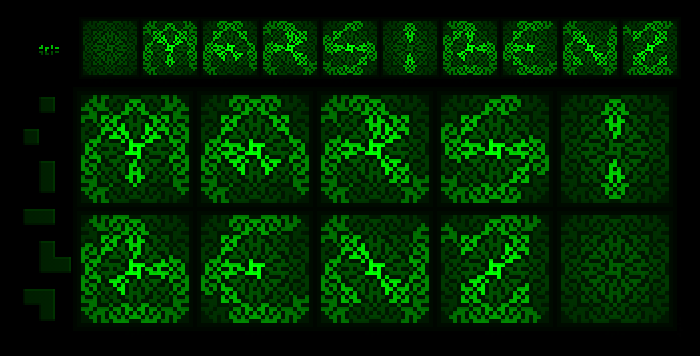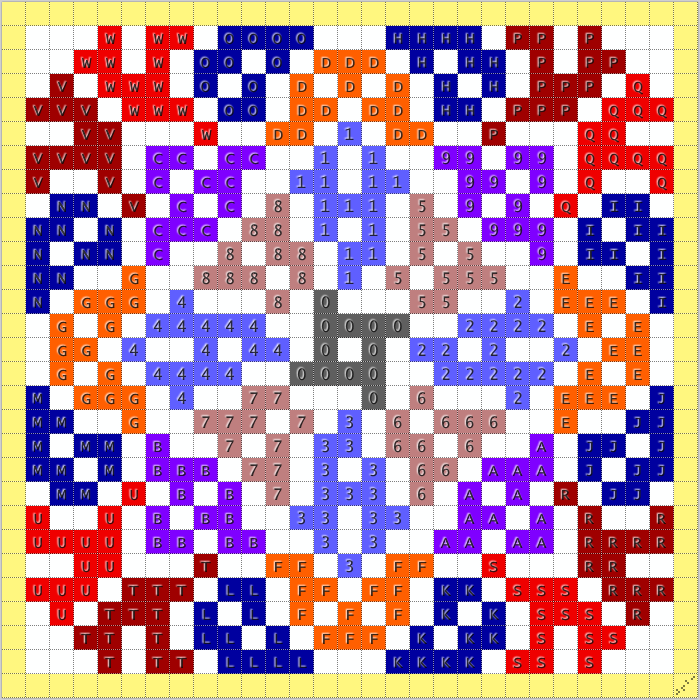
Just WOW  ... what a pixel design! The secret lies in the green ;)
@Aeolien: for your lantern, the green sample was fuelled by J'onn J'onzz… ;-)
{ I'm going to post this sample as plain text + a chart = how-to… ^^ }
Fixed the 5-8 keys + fine tuned the horizontal spacing (3px).
→ Font uploaded. You can paste this:
“mars:benz”_sample_(in_fancy_uppercase)[black_bg][green_fg]:
03859CDEGIJMPQRTUVW 04679CDEGHJMORTU 014569ADGMORSTUVW 024ACDEFGHJKLNTU 13DF 0127CDEFGJKLMNORSTUW 04BCDFGHKLMOPRS 086ABCEGIJMQRSTUVW 0579ABCDFHKLPSTV
{ACDEFGHIJKLMPQT(uc_o) 04569AMNPRSTUV(uc_k)}_optional
TUMGVC806ARJEIQS OD103FLK QPHDCGMUTLFA QPHDCG402MUTLFKS HD10F
@cmunk:{1345678 DEFGHIJKLMNOPQRSTUVW 1249ABC}animated;)
@dpla - Congratulations on the success of this amazing project (D33SPM V25), as well as the original D33SPM !
@Goatmeal & CMunk: thank you, I may fontstruct (clone) a complete set of text characters 'soon' (capitals, digits, punctuations…) after this experiment/tutorial. I still don't know next (Svg hopefully, perhaps more imbricated elements, like 256)…
B.t.w., here is the small sample in image for CMunk (colored and magnified from my plain text above).^^
Normal downsampling…
Testing 1:1 size…
(I'll post many '700px' images soon.)
13DFLMNOTUVW0G VNGMU VWOD104GMUTLF VWOD1043FLTU VNG4013FD OWVNG403FLTU OWVNG403FLTUM VWOD103F OWVNG403FLTUMD1 OWVNG403FLTUD1 VNGMU103FKRSJEIQPHD VNGMU103FD VNGMUDHPQIE203FKSR VNGMUDHPQIE2JRSKF
VNGMU10D2QIEJR VNGMUFKSRJE201DHPQ VNGMUFKSRJE201DHPQ3 VNGMU1DHPQIEJR VNGMUFKSRJE201DHPQ3I VNGMUFKSRJE201DHPQI 023EJRSKFVWOD14GMUT
your “code” = numbers 0 till 19 (+ “2o”), quite smart again!-))
« 1.5 y of FS » so you are a lot more used to this tool than I'd ever be. (I shamefully limit my use to pixel & generator stuff, contrary to the FS masters that can produce beautiful, round & fanciful outlines…) It's a pity too that I can only take into account the micro pixel fonts (which is more or less my hobby since the early 1980s: the very low quality (I mean, usability in US-ASCII at least) made me stop listing the (time-wasting) hundreds of fontstructed trials.
that "2o" thing is actually 20
@18man: be reassured that nobody on FS could overlook your (hack that presented alternate) text figures (for the stuck number 20, of course :)) A cool idea/optimization in any case.
This said, as mentioned above (pertaining to my prioritized projects), I could reopen my 2018 archive of “D33SPM”: I'm a tad sad to see that V25 was not my 1st choice for the coded/outcome font: I have to finish this V1 before any possible variation in V25 (the glyphs may not be compatible from V1 to V25 – we never know, though…). So, please jump to the page of “D33SPM V1”, where I'll copy my WIP list of coded glyphs.